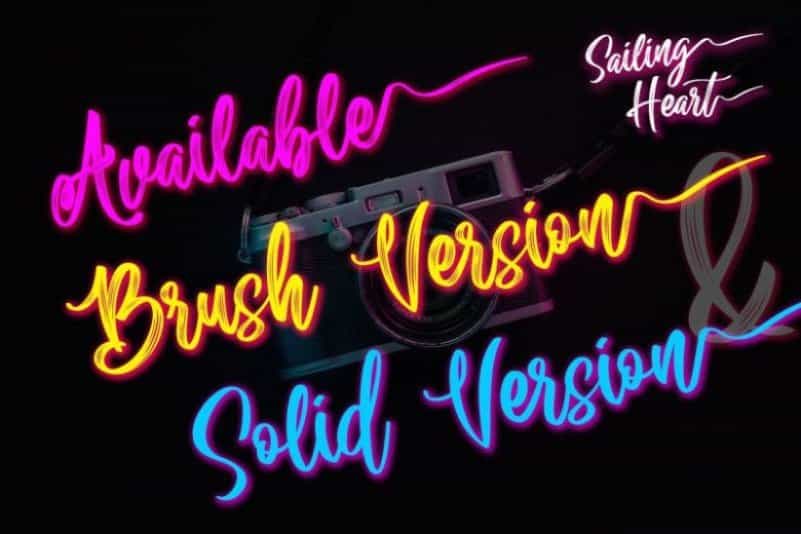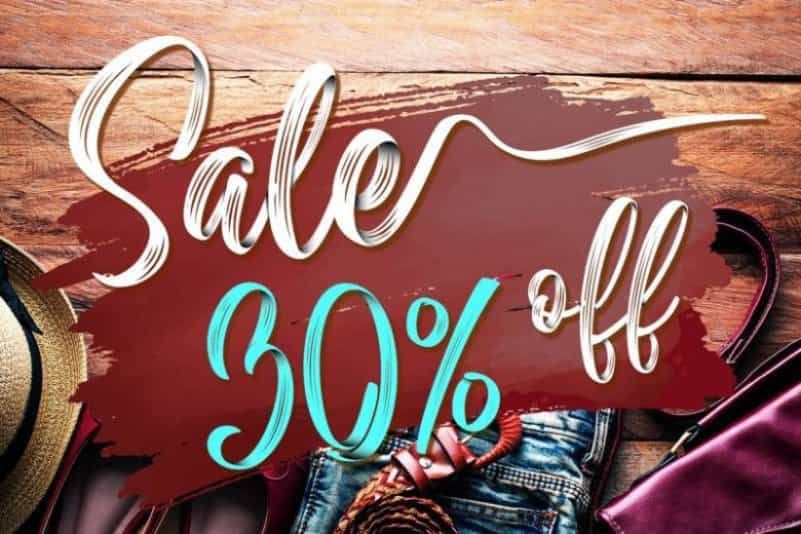
Sailing Heart Script is our newest product and we are proud to present it!It is created and used by Din Studio. Sailing Heart Brush Font is an elegant script font, which was created using a natural brush. The brush font will give a texture to your design which is beautiful and strong. This font is applicable to any design, for instance branding, quotes, wedding invitation and etc.